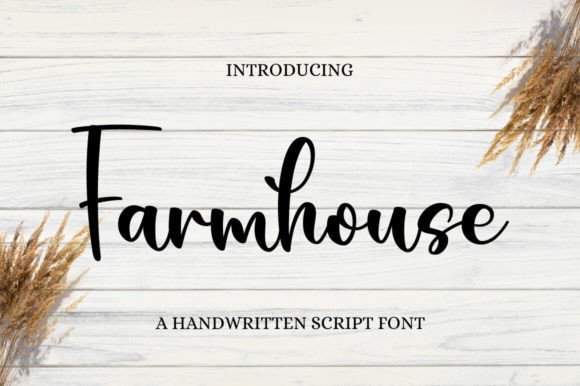
The Perfect Brushstroke for Your Next Design Project
As a designer, there’s nothing quite like the feeling of finding the perfect font to bring your vision to life. You’ve spent hours poring over inspiration boards, sketching out ideas, and tweaking layouts – and then, suddenly, it hits you: the perfect brushstroke, the perfect curve, the perfect font to tie everything together. For many of us, that moment comes when we discover the Farmhouse Font, a timeless and lovely handwritten font that’s perfect for creating eye-catching logos, branding, and quotes.
The Farmhouse Font is more than just a pretty face – it’s a valuable tool for designers looking to add a touch of warmth and personality to their work. With its elegant, handwritten feel, it’s the perfect choice for anyone looking to create a brand identity that’s both unique and memorable. Whether you’re working on a new logo, a marketing campaign, or simply a beautiful quote to share on social media, the Farmhouse Font is sure to help you stand out from the crowd.
Farmhouse Font Key Features
- Font Family: Farmhouse Font is a handwritten script font, ideal for rustic, country, and vintage designs.
- Unique Characteristics: Farmhouse Font features a unique, hand-drawn feel with varying line widths, giving it a personal and authentic touch.
Farmhouse Font Review
As a designer, I’ve had the chance to work with the Farmhouse Font, and I’m excited to share my honest review with you.
The Farmhouse Font is a great choice for projects that need a rustic, homespun feel. It’s perfect for creating a welcoming atmosphere, and it’s especially well-suited for projects related to country living, gardening, or cooking.
- Unique character set that’s perfect for creating a sense of nostalgia
- Wide range of weights and styles to choose from
- Highly customizable, making it easy to adjust to your project’s needs
While the Farmhouse Font is a great choice for many projects, there are some limitations to be aware of.
- May not be the best choice for projects that require a more modern or sleek look
- Some users may find the font too ornate or busy
- Not as versatile as some other fonts, may not work well in certain contexts
Overall, I think the Farmhouse Font is a great choice for designers who want to create a warm and inviting atmosphere. While it may have some limitations, it’s a unique and charming font that’s sure to add character to any project.
Getting the Most Out of Farmhouse Font
For the best results, use Farmhouse Font in combination with distressed textures and vintage-inspired graphics.
Experiment with different font sizes and colors to create a unique and eye-catching look.
Farmhouse Font is perfect for:
1. Farm-themed designs and websites.
2. Rustic wedding invitations and decorations.
3. Vintage-inspired home decor and furniture designs.
Can I customize Farmhouse Font to fit my design needs?
Yes, Farmhouse Font is highly customizable. You can adjust font sizes, colors, and styles to fit your design project’s requirements. Additionally, Farmhouse Font supports ligatures, which allow you to create custom letter combinations and enhance the overall aesthetic of your design.